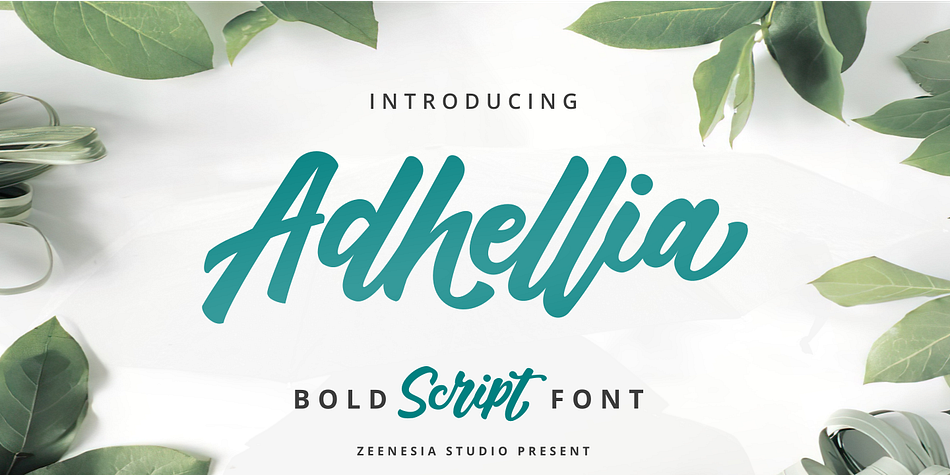
Adhellia Regular
Adhellia is a brush script font family published by Zeenesia Studio.
The Adhellia Script is a hand lettered script font. It has a bold and smooth style and is perfect for making any design stand out. Best suitable for branding, packaging, print titles, tshirt design, food design, and similar projects. I created more than 70 stylistic alternates and some natural ligatures to make this font very classy and look so beauty.